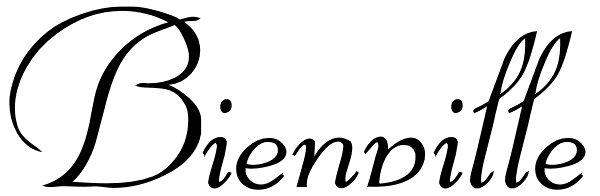
Bienville
Bienville is an elegant script font with some unusual features. It includes end-of-sentence flourishes which attach to most lower case characters, a flourish for attaching to the descenders of selected characters, and some stand-alone flourishes as...